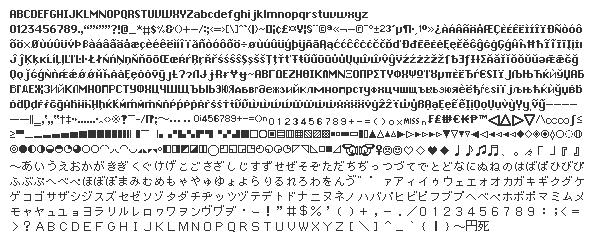
ChronoType is a proportional sans-serif pixel font recreation based on the original main text font appearing in the SNES video game Chrono Trigger, developed and released by Square in 1995. The character set of this font was greatly expanded with the full Japanese hiragana and katakana alphabets, countless additional special characters, Cyrillic and Greek letters, diacritic variants, unique glyphs and the like, each one of them designed to match the spirit and style of the original font design. To recreate the original look of the in-game pixel font stick to font sizes that are multiples of 16pt and avoid any anti-aliasing or other font smoothing methods. Features • 1000 characters total • Proportional sans-serif typeface • Complete original Japanese hiragana and katakana character sets • Cyrillic and Greek base alphabets • Countless additional special characters, diacritic variants, etc. Please contact me for any commercial use of my fonts. Copyright © 2016 Caveras. All rights reserved. |